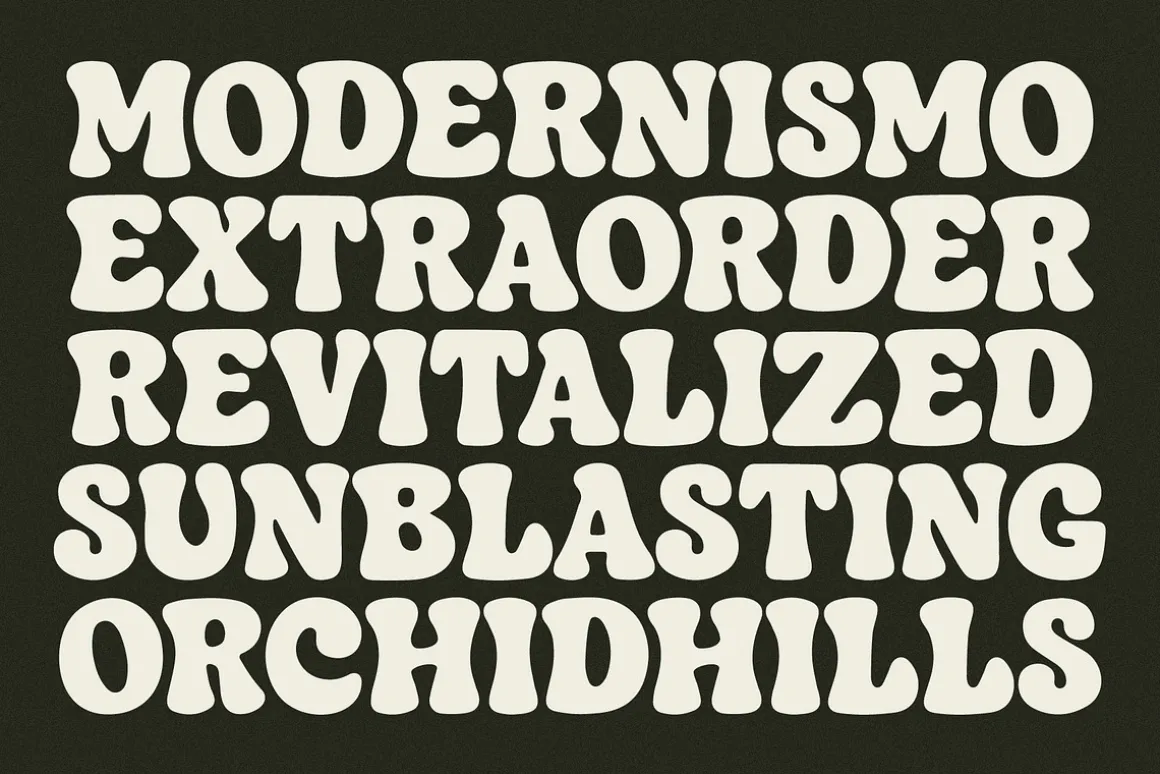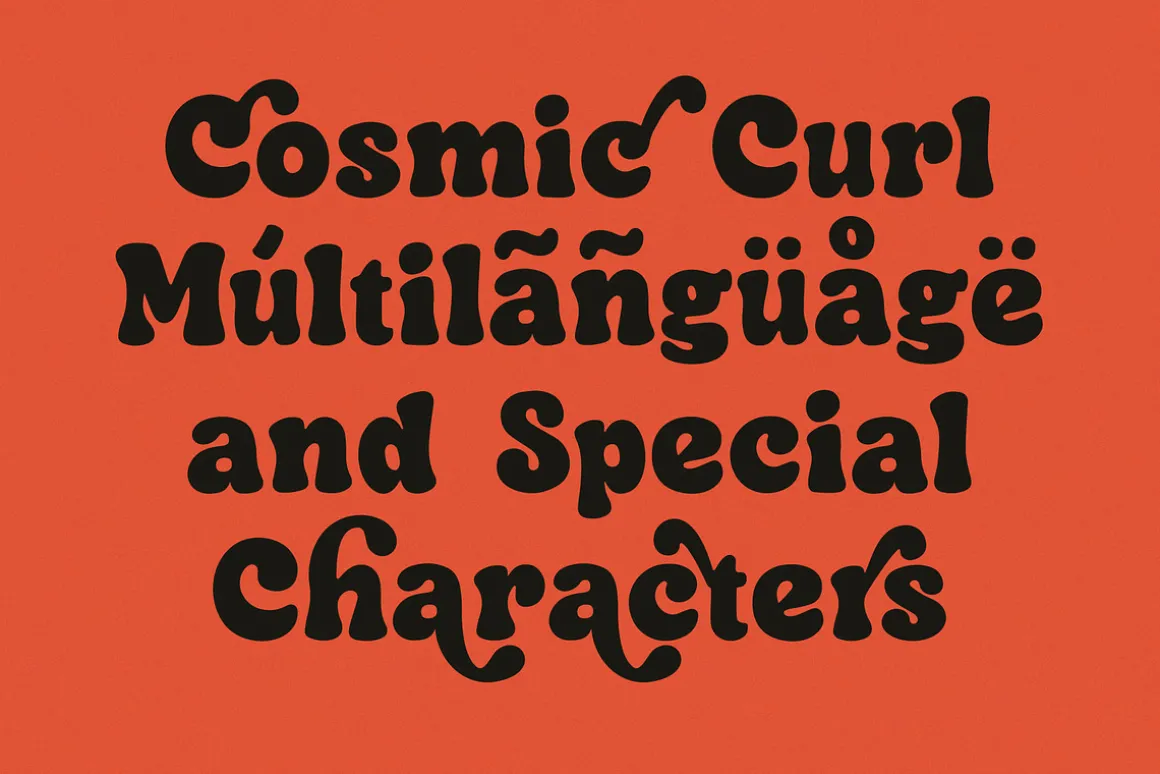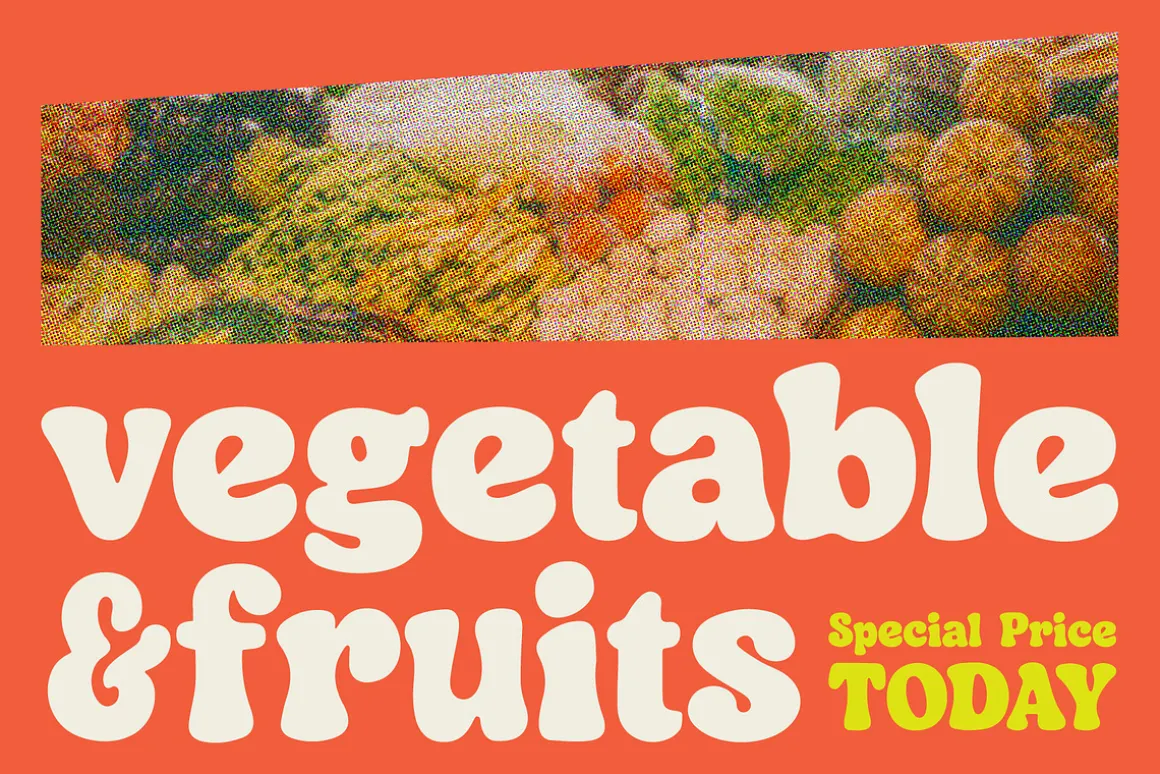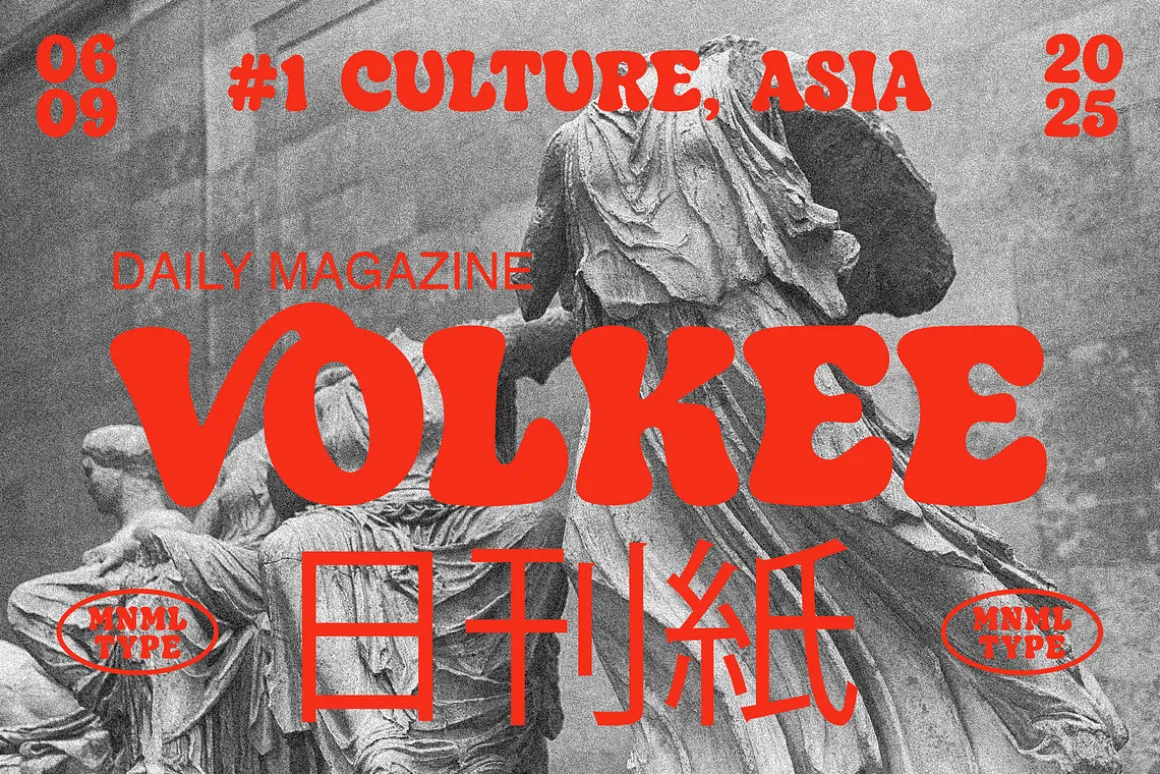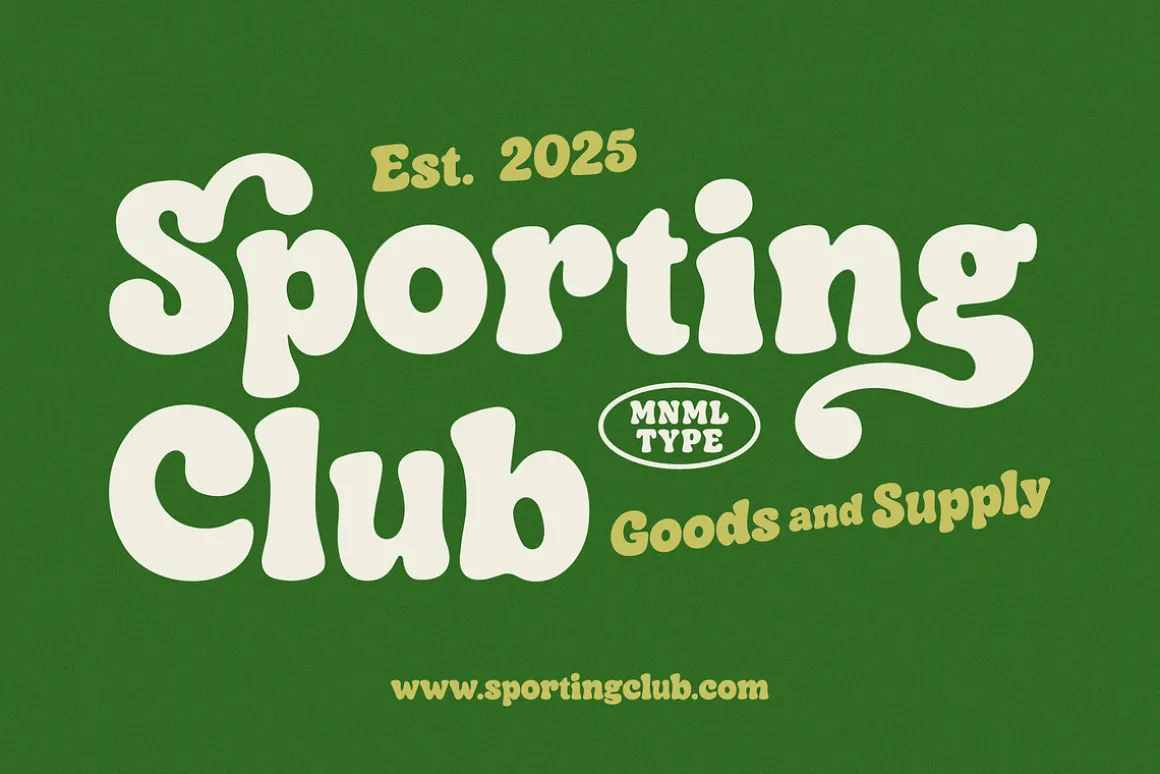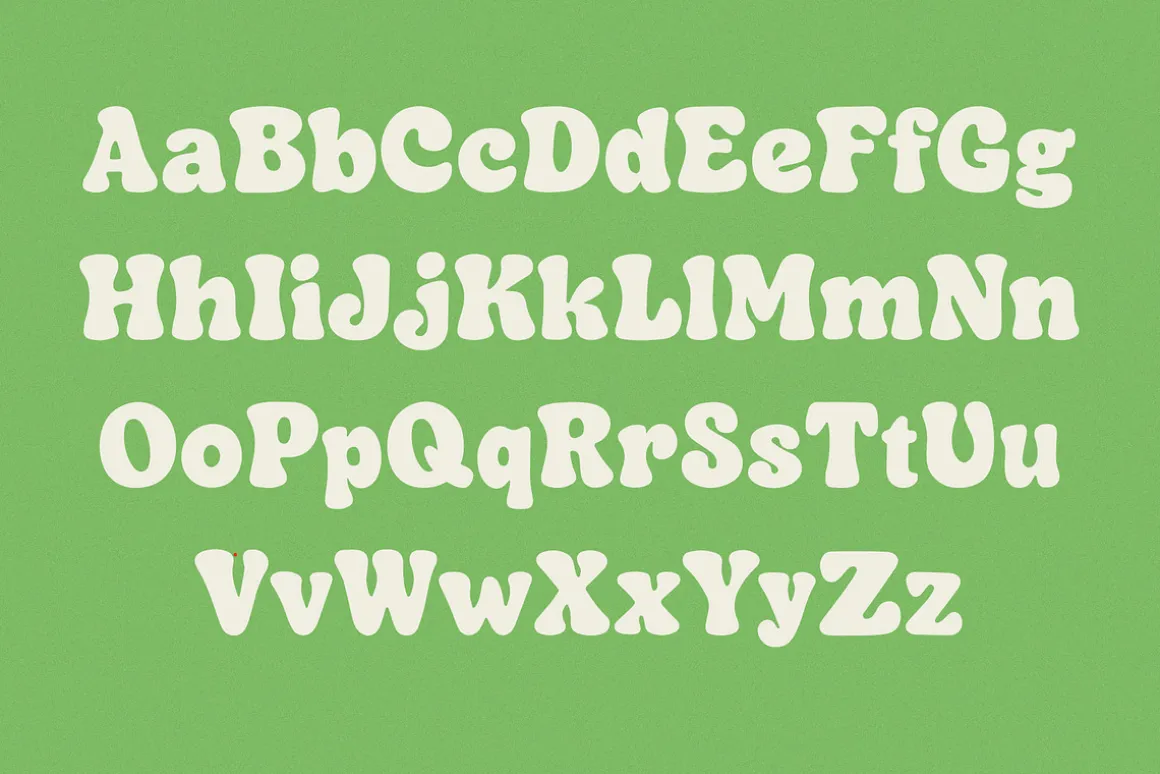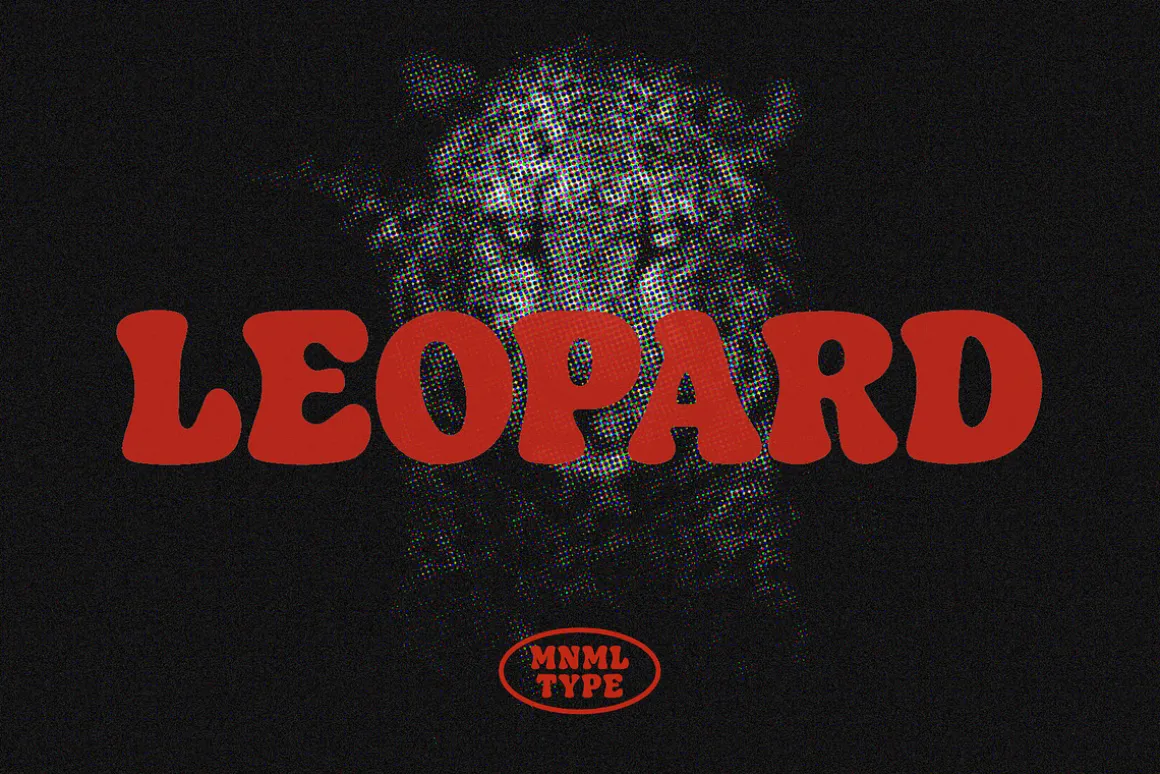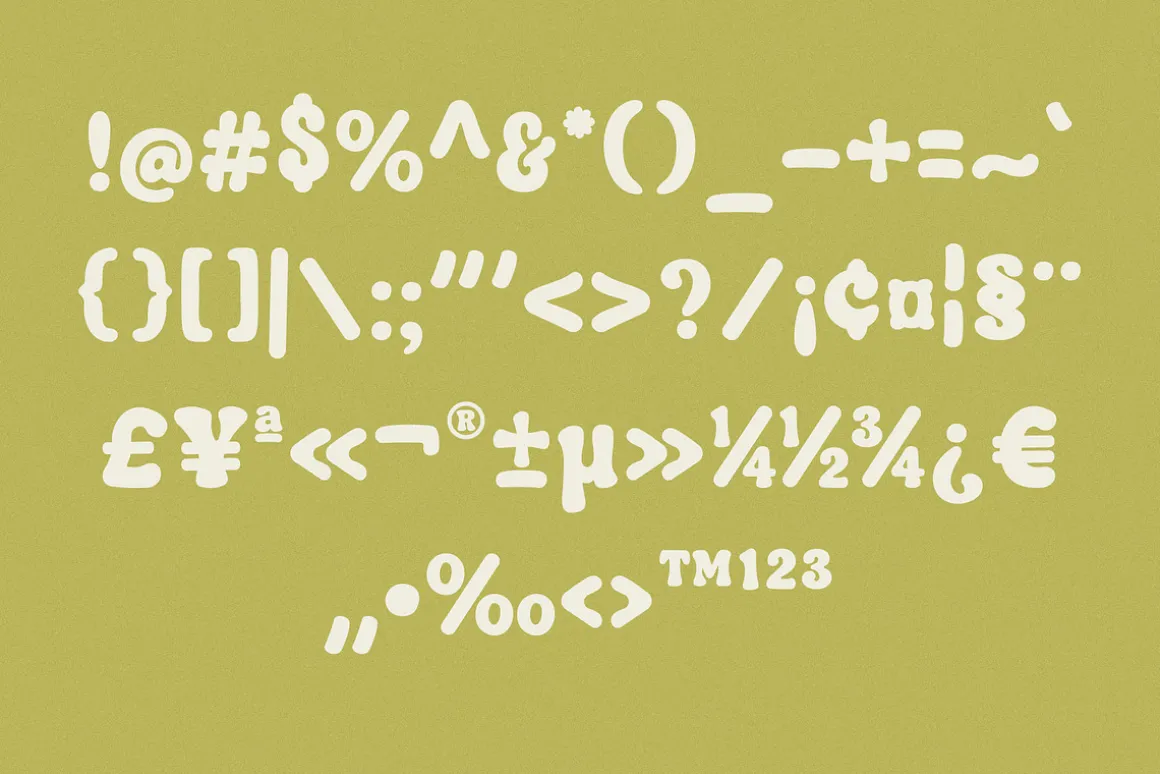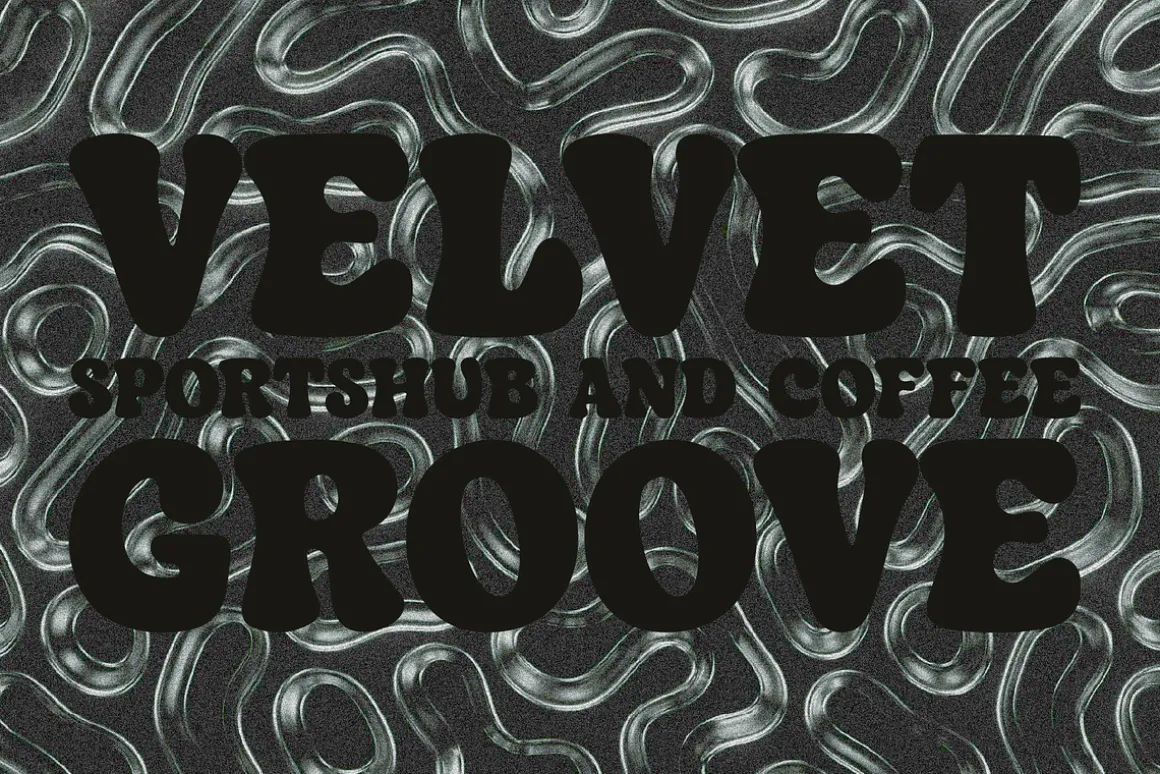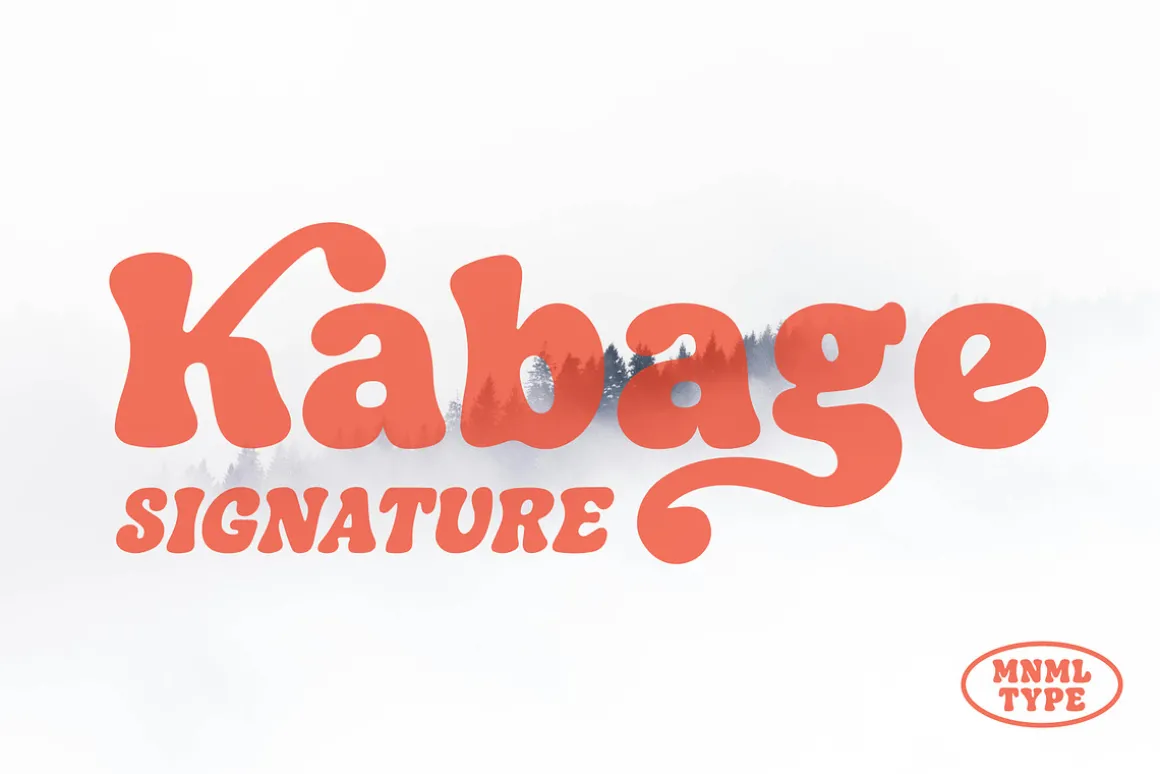
Cosmic Curl is a bold retro typeface inspired by 60s–70s psychedelic lettering, organic curves, and playful visual rhythm. Its chunky silhouettes and whimsical swashes make every word feel lively and expressive. Designed for creators who want to bring personality and nostalgic charm into their work, Cosmic Curl is perfect for branding, posters, packaging, editorial titles, logos, magazines, and standout social media graphics.
Each letterform is crafted with smooth, soft edges and subtle irregularities that mimic hand-drawn aesthetics while remaining highly readable. The optional curls and swoopy terminals add a distinctive character that feels warm, friendly, and delightfully vintage.
Whether you’re building a retro-inspired brand, designing merch, or crafting eye-catching typographic compositions, Cosmic Curl delivers a bold, joyful visual identity that stands out effortlessly.
Bring a touch of nostalgic magic and playful character to your next creative project with Cosmic Curl.